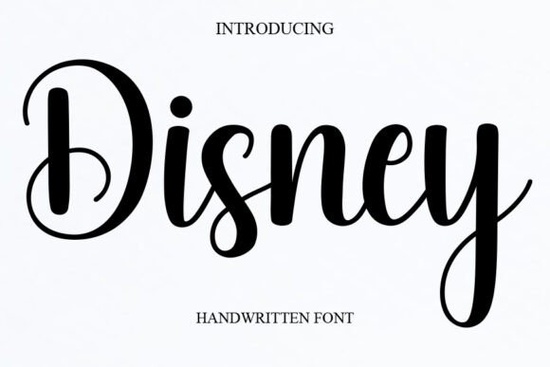
If you're looking for a friendly, hand-drawn script font that brings warmth and personality to your designs without feeling overly formal or stiff the Disney Font is a thoughtful choice. It’s not a licensed Disney product, but its gentle, cursive flow echoes the soft charm of classic storybook lettering. You’ll find it works especially well for projects where you want elegance and approachability like wedding stationery, boutique branding, greeting cards, or small-batch apparel labels. It’s designed to sit comfortably between “fancy” and “everyday,” making it versatile for both digital and print use.
When does the Disney Font fit best?
This font shines in contexts where tone matters as much as typography. Think: a handmade soap label that needs to feel personal, not corporate; a baby shower invitation that should whisper “joy” instead of shout it; or a seasonal promo for a local florist who wants their social posts to look like they were written with care not generated by an algorithm. Because it’s a true handwritten-style script, it pairs naturally with light textures, soft watercolor backgrounds, or minimalist layouts.
It’s also a solid pick if you’re building a cohesive brand identity on a budget. Unlike some ornate scripts that need careful kerning or pairing with a strong sans-serif, the Disney Font holds its own at medium sizes and reads clearly even in smaller applications like tags, thank-you notes, or Instagram story text overlays.
How does it compare to other popular script fonts?
Every script font has its own rhythm and mood. For example, the Brown Carolina Duo Font leans into contrast and structure great when you want a polished, editorial feel. The Rainbow Font adds playful bounce and energy, ideal for kids’ products or bright, cheerful campaigns. If you’re just starting out with script fonts and want something forgiving and easy to read, the Absolute Beginner Font offers clean lines and consistent spacing. Meanwhile, Forever Font brings a timeless, slightly vintage romance perfect for heirloom-style packaging or wedding vows. And for moments when you want subtle whimsy without sacrificing legibility, Lucky Font delivers gentle curves and balanced weight.
Compared to those, the Disney Font sits in a sweet spot: more relaxed than Forever, less bouncy than Rainbow, and softer in stroke than Brown Carolina Duo. It’s the kind of font you reach for when you want your design to feel like a quiet smile not a spotlight moment.
What file formats and features come with it?
Since it’s a single-weight script, it’s best used for headings, short quotes, or focal text not long paragraphs. For body copy, pair it with a clean, neutral sans-serif (like Montserrat or Open Sans) to keep readability high.
Who’s using this font right now?
We’ve seen small business owners use it for custom tea towel prints sold on Etsy, local bakeries adding it to cupcake box stickers, and wedding planners embedding it into editable Canva templates. Print-on-demand sellers report good performance on mugs and tote bags especially when paired with simple line art or botanical motifs. One craft blogger even used it across her entire blog rebrand, from her logo to recipe card headers, noting that readers consistently commented on how “inviting” the site felt.
It’s worth noting that while the name may suggest a connection, this is an original design inspired by friendly cursive aesthetics not affiliated with The Walt Disney Company. For reference, you can see how it compares to similar styles on Disney font, rainbow font, and lucky font on Creative Fabrica.
A quick checklist before you download
- ✅ You need a warm, readable script for short headlines or decorative text not long blocks of copy
- ✅ Your project benefits from a soft, joyful tone (e.g., weddings, baby items, lifestyle brands)
- ✅ You’re comfortable pairing it with a simple sans-serif for balance
- ✅ You’re okay with a single-weight font no bold or italic variants included
- ✅ You understand it’s an original design inspired by friendly handwriting not a licensed Disney product
If those match your needs, the Disney Font is ready to add quiet charm to your next project no overthinking required.